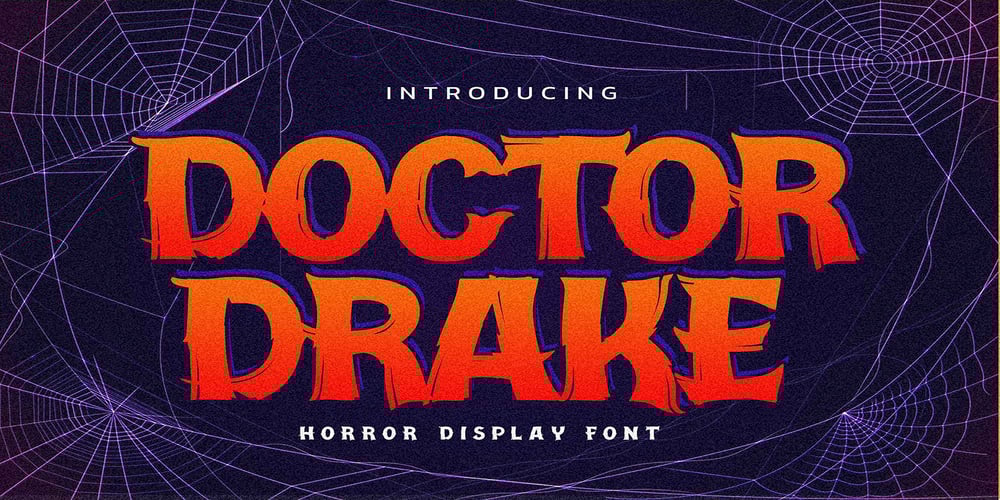
Doctor Drake Font Family was designed by Abdul Malik Wisnu, Anang Fibriyanto and published by Gassstype. Doctor Drake contains 1 styles and family package options. Hello Everyone, introduce our new product Font Doctor Drake it is Horror Display Font.This is a Textured Natural Style and Strong style with a Cool style and dramatic movement.This font Doctor Drake is great for your next creative project such as logos, printed quotes, invitations, cards, product packaging, headers, Logotype, Letterhead, Poster.